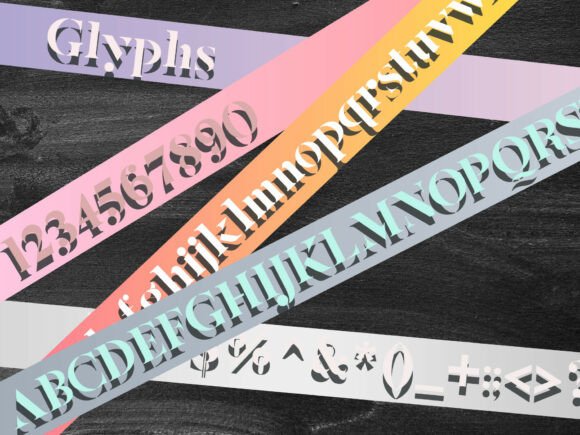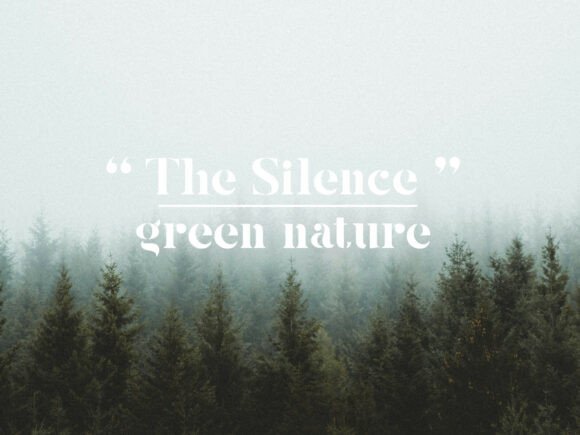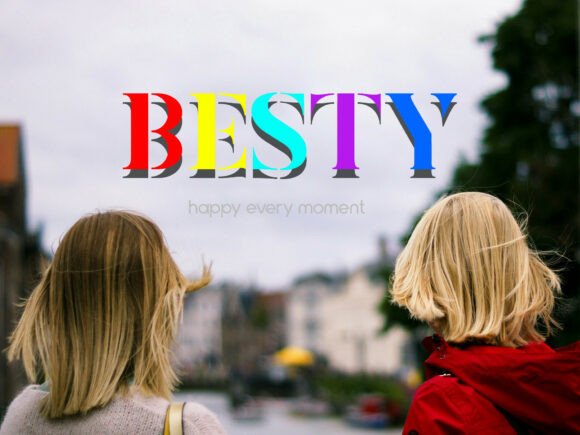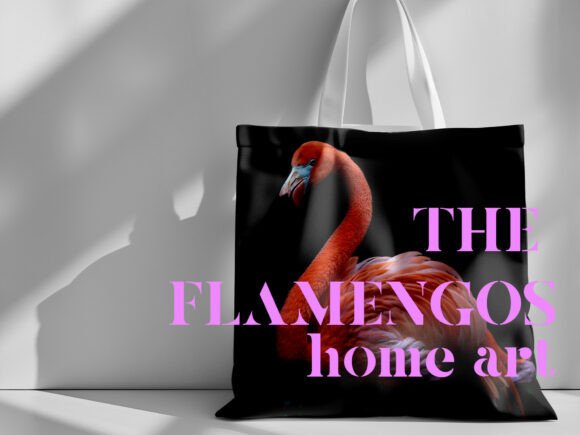
Introducing Crowwack: The Audacious Serif Font Redefining Visual Aesthetics
In the realm of typography, few fonts manage to strike a balance between timeless charm and modern futurist aesthetics. Crowwack, an audacious and ornate serif font, achieves this delicate balance with precision and flair. Designed with meticulous attention to detail, Crowwack is the perfect choice for creators seeking to make an overwhelming visual impact.
The Design Philosophy Behind Crowwack
Crowwack’s design is rooted in the innovative tandem of classic elegance and futuristic appeal. By combining crisp edges, symmetrical curves, and harmonious letterforms, Crowwack embodies the vigor of digital age sophistication. This font is not just a collection of letters; it’s a visual statement that redefines the future of visual aesthetics.
Key Features of Crowwack
- Precise Geometric Shapes: Crowwack’s design is based on precise geometric shapes, giving it a unique and distinctive look.
- Ornate Serif Details: The font features ornate serif details that add a touch of elegance and sophistication to any design.
- Crisp Edges and Symmetrical Curves: Crowwack’s crisp edges and symmetrical curves create a sense of balance and harmony, making it perfect for high-stakes design ventures.
- Harmonious Letterforms: The font’s letterforms are designed to work in harmony with each other, ensuring that any text-based design looks cohesive and visually appealing.
Perfect for High-Stakes Design Ventures
Crowwack is more than just a font; it’s a design solution for those who aim to make a lasting impression. Its exceptional design makes it the perfect choice for:
- Tech-Infused Branding: Crowwack’s futuristic appeal makes it an ideal choice for tech brands looking to establish a strong visual identity.
- Striking Logos: The font’s bold and ornate details make it perfect for creating striking logos that capture attention.
- Billboard-Ready Posters: Crowwack’s clear and legible design ensures that your message gets across, even from a distance.
- Chic Magazine Covers: The font’s elegant and sophisticated design makes it perfect for magazine covers that require a touch of luxury.
- Newspaper Headlines: Crowwack’s bold and attention-grabbing design makes it ideal for newspaper headlines that need to stand out.
- Movie Titles: The font’s cinematic appeal makes it perfect for movie titles that require a touch of drama and sophistication.
Breathing Life into Designs
Crowwack doesn’t just create designs; it breathes life into them. With this font, you’re not just designing; you’re rewriting the future of visual aesthetics. Crowwack is the quintessential choice for:
- Sci-Fi Themes: The font’s futuristic appeal makes it perfect for sci-fi themes that require a touch of otherworldliness.
- Virtual Interfaces: Crowwack’s clean and legible design makes it ideal for virtual interfaces that require a touch of sophistication.
- Cutting-Edge Visuals: The font’s bold and attention-grabbing design makes it perfect for cutting-edge visuals that require a touch of drama.
In conclusion, Crowwack is a game-changing font that redefines the world of typography. Its innovative design, precise geometric shapes, and ornate serif details make it the perfect choice for creators seeking to make a lasting impression. Whether you’re working on a tech-infused branding project, a striking logo, or a billboard-ready poster, Crowwack is the surefire match that will breathe life into your designs.
Get Ready to Rewrite the Future of Visual Aesthetics
With Crowwack, you’re not just designing; you’re rewriting the future of visual aesthetics. So, what are you waiting for? Get ready to unleash your creativity and take your designs to the next level with Crowwack, the audacious serif font that’s redefining the world of typography.